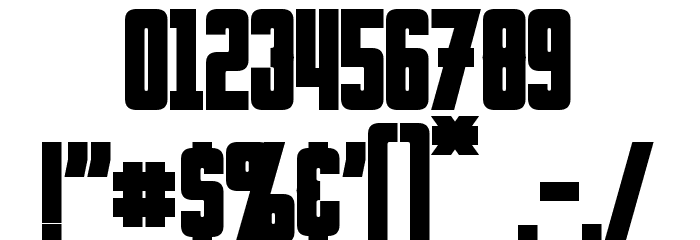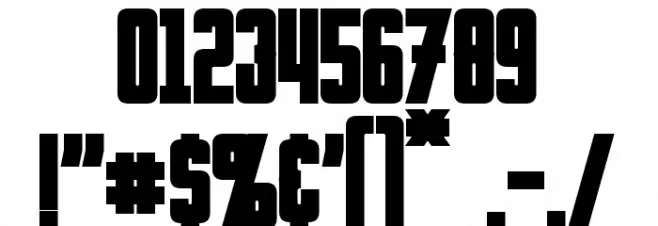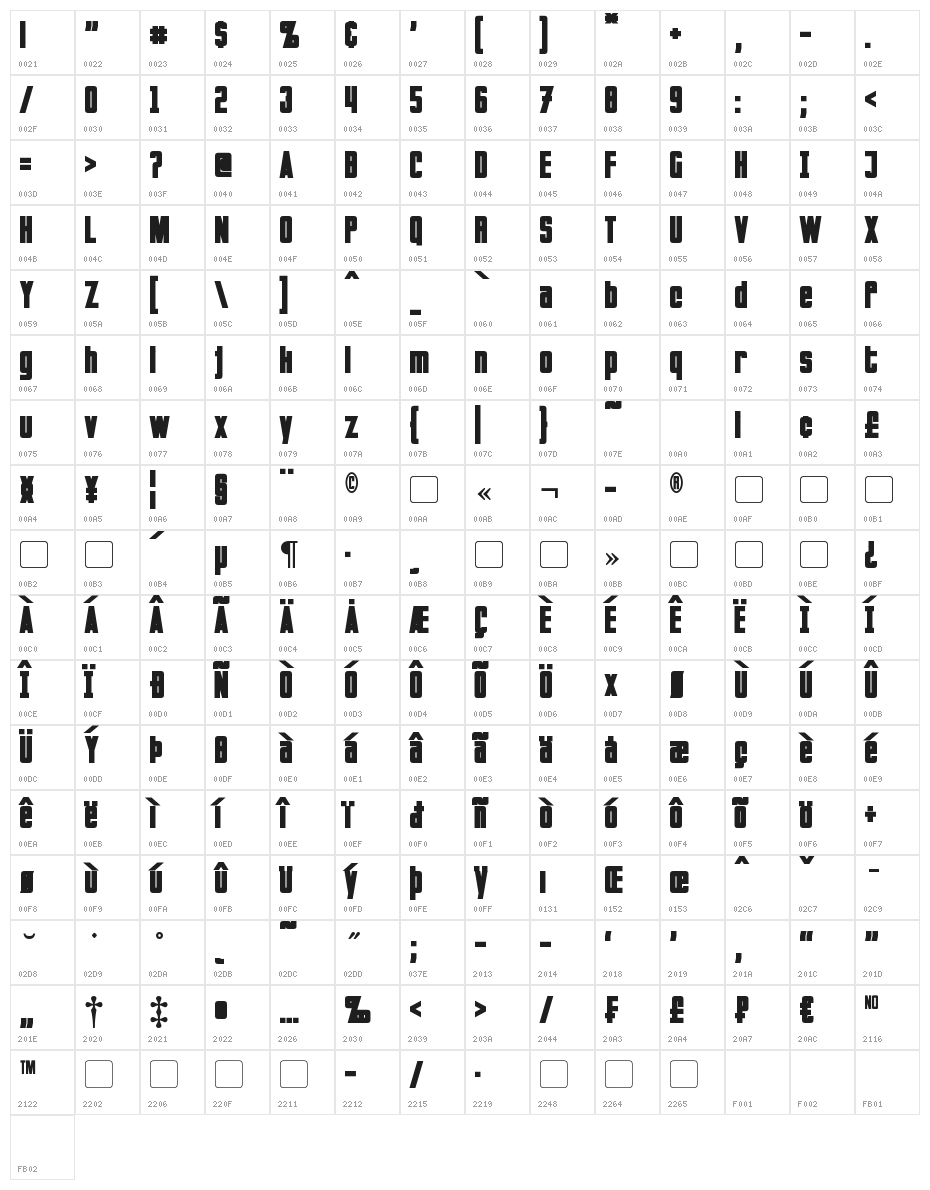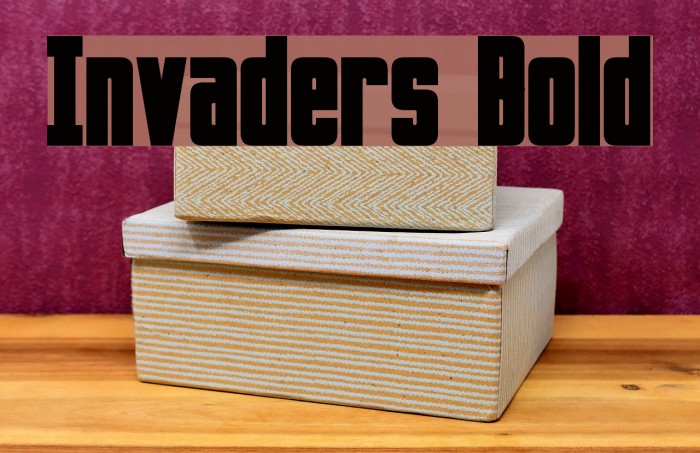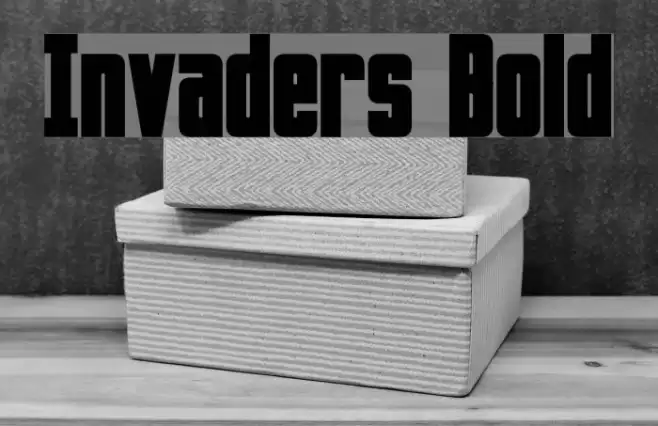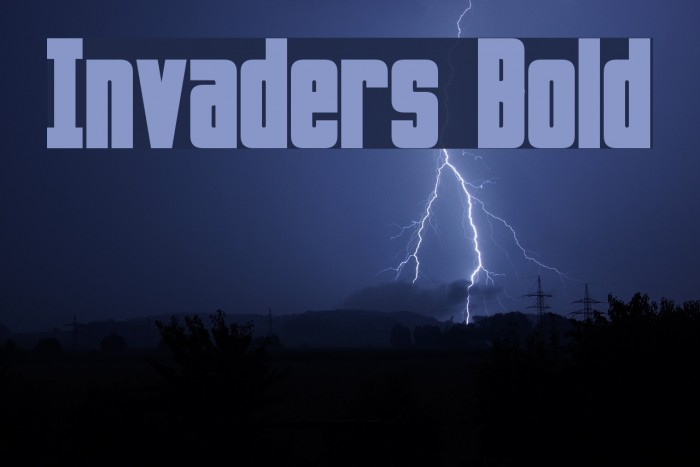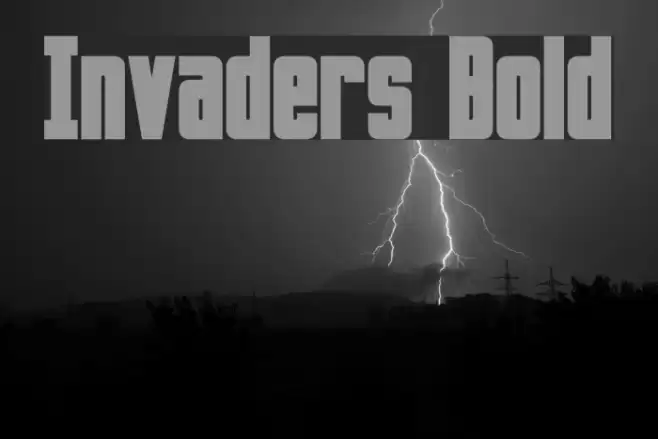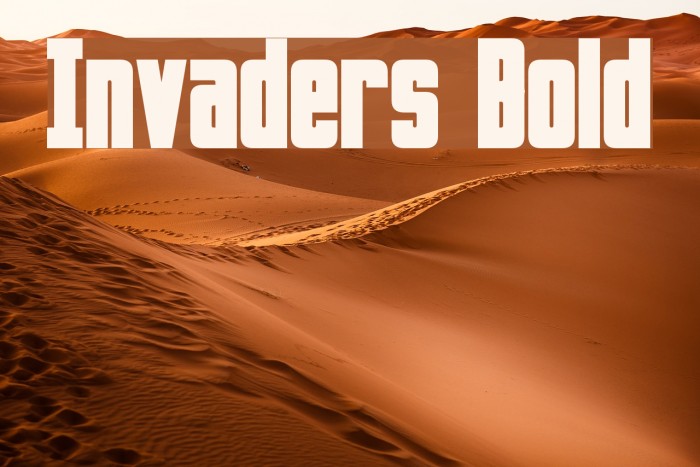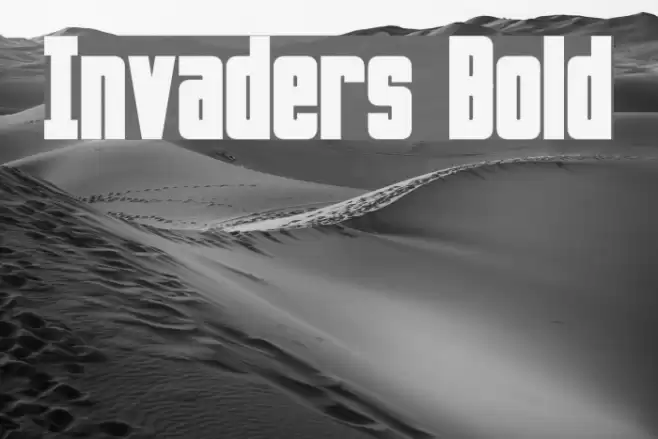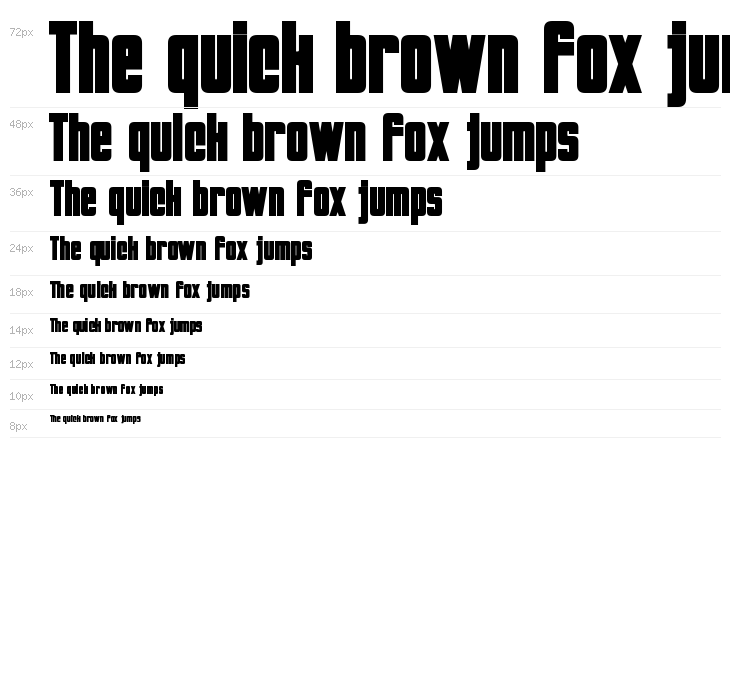
Invaders Bold Font
Invaders Bold Description
This bold, geometric font features a strong, impactful presence with its thick, block-like characters. The uppercase and lowercase letters maintain a consistent width, creating a uniform appearance. The numbers and special characters follow the same bold style, ensuring a cohesive look across all text elements. The font's design is reminiscent of retro arcade aesthetics, with a modern twist that makes it suitable for contemporary projects. Its high contrast and wide character spacing enhance readability, making it ideal for attention-grabbing headlines and display purposes.
| Overall Style | Retro, Modern |
| Proposed Projects | Perfect for video game titles, posters, logos, and any project needing a bold, retro aesthetic. |